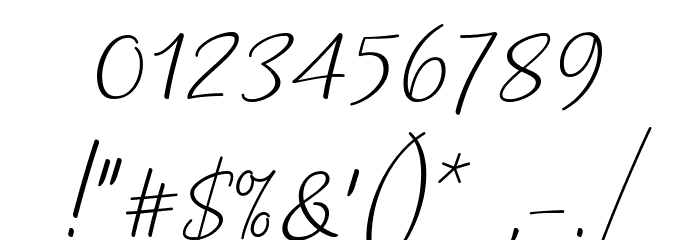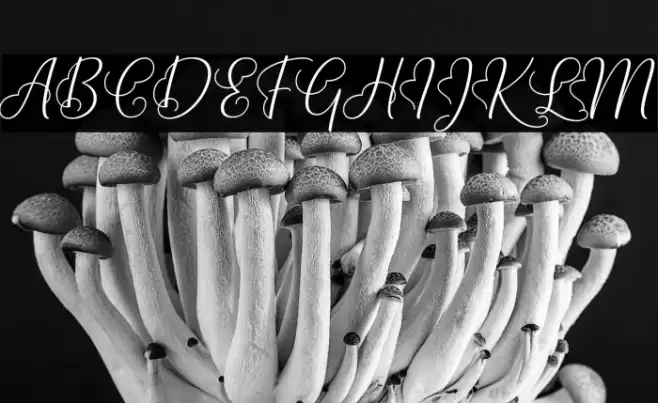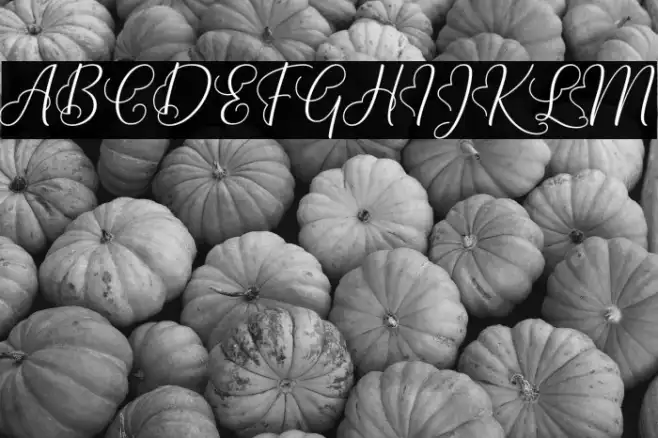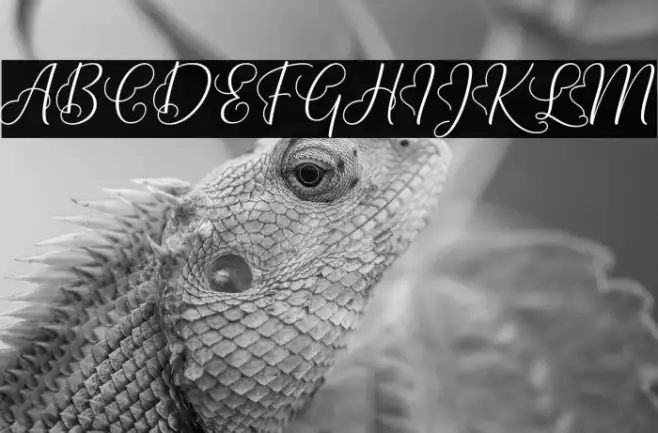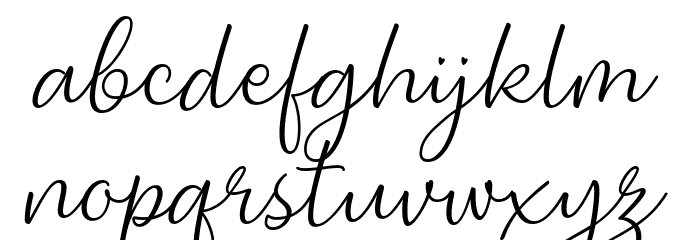
Lova Valove Font
This elegant script font features flowing, cursive letterforms with a graceful and sophisticated appearance. The uppercase letters are characterized by their sweeping curves and delicate loops, while the lowercase letters maintain a consistent fluidity and charm. The numerals are designed with a similar flair, ensuring a cohesive look across all characters. Special characters are thoughtfully integrated, adding to the font's versatility. The overall design exudes a sense of romance and elegance, making it ideal for projects that require a touch of sophistication.
A graceful and elegant script font with flowing cursive letterforms.
• Proposed Projects: Ideal for wedding invitations, greeting cards, branding, and elegant packaging designs.
• Category: Script
• Overall Style: Elegant
• Use Case: Logos, Invitations, Decorative text